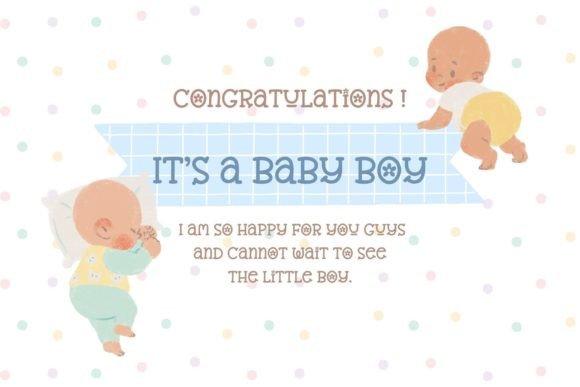
Introducing Fox Browny Font: The Charming Handwritten Serif Typeface
Are you looking for a font that can add a touch of cuteness and simplicity to your creative projects? Look no further than Fox Browny Font, a charming handwritten serif typeface that is sure to delight. With its clean lines and easy-to-read design, this font is perfect for a wide range of projects, from inspirational quotes and captivating headings to engaging blogs, striking logos, and inviting invitations.
The Characteristics of Fox Browny Font
Fox Browny Font is a unique and charming typeface that boasts a range of characteristics that make it perfect for creative projects. Some of its key features include:
- Handwritten serif design: Fox Browny Font has a distinctive handwritten serif design that gives it a personal and charming feel.
- Clean lines: The font features clean lines that make it easy to read and understand.
- Easy-to-read design: The font is designed to be easy to read, making it perfect for use in a wide range of projects.
- Cute and simple: Fox Browny Font exudes cuteness and simplicity, making it perfect for projects that require a touch of whimsy.
Uses for Fox Browny Font
Fox Browny Font is a versatile typeface that can be used in a wide range of creative projects. Some of the ways you can use this font include:
- Inspirational quotes: Fox Browny Font is perfect for creating inspirational quotes that are both visually appealing and easy to read.
- Captivating headings: The font’s clean lines and easy-to-read design make it perfect for creating captivating headings that grab attention.
- Engaging blogs: Fox Browny Font is a great choice for blogs, as it is easy to read and adds a touch of personality to your content.
- Striking logos: The font’s unique design makes it perfect for creating striking logos that stand out from the crowd.
- Inviting invitations: Fox Browny Font is also perfect for creating invitations that are both visually appealing and easy to read.
The Benefits of Using Fox Browny Font
There are many benefits to using Fox Browny Font in your creative projects. Some of the advantages of this font include:
- Unique design: Fox Browny Font has a unique design that sets it apart from other typefaces.
- Easy to read: The font is easy to read, making it perfect for use in a wide range of projects.
- Versatile: Fox Browny Font is a versatile typeface that can be used in a wide range of creative projects.
- Cute and simple: The font exudes cuteness and simplicity, making it perfect for projects that require a touch of whimsy.
Fox Browny Font is a charming handwritten serif typeface that is perfect for creative projects. With its clean lines, easy-to-read design, and cute and simple aesthetic, this font is sure to delight. Whether you’re creating inspirational quotes, captivating headings, engaging blogs, striking logos, or inviting invitations, Fox Browny Font is the perfect choice. So why not give it a try and see the difference it can make in your creative projects?
- What is Fox Browny Font?: Fox Browny Font is a charming handwritten serif typeface that exudes cuteness and simplicity.
- What is Fox Browny Font used for?: Fox Browny Font can be used in a wide range of creative projects, including inspirational quotes, captivating headings, engaging blogs, striking logos, and inviting invitations.